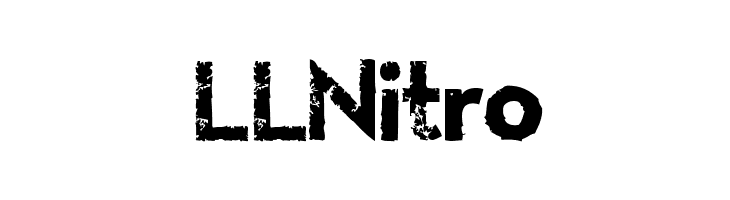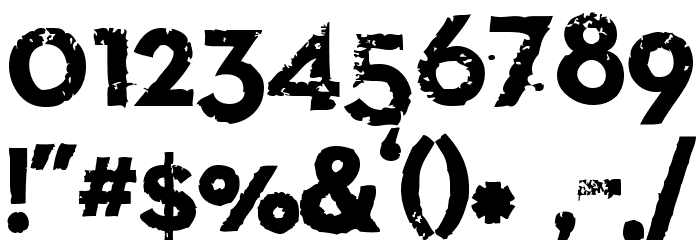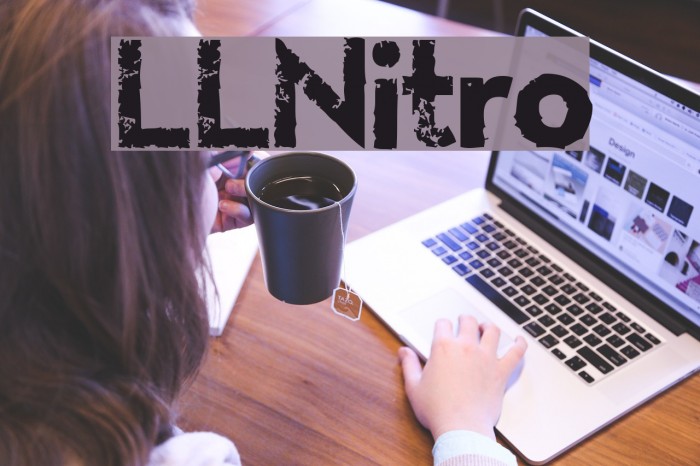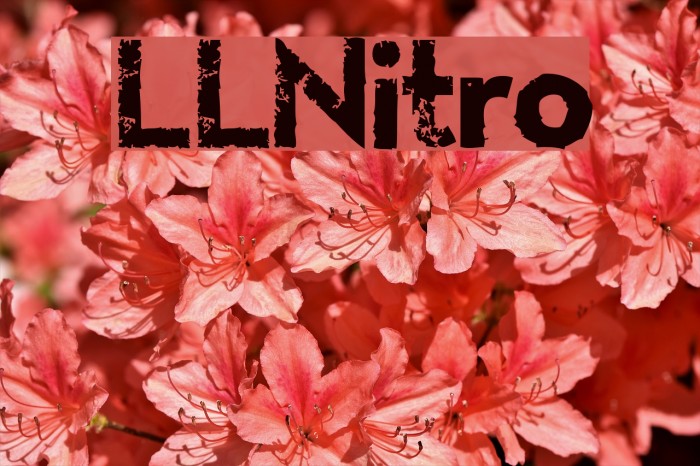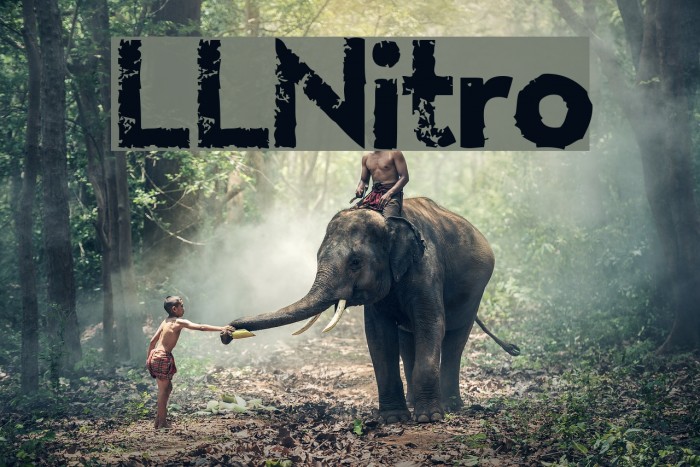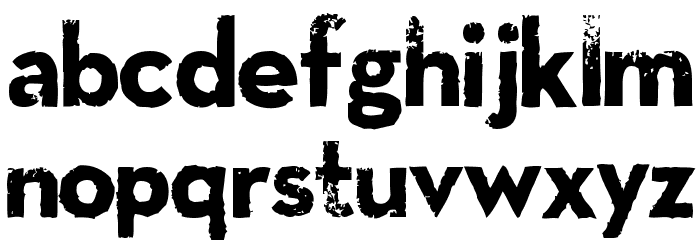
LLNitro Font
LLNitro Description
This font features a bold, distressed style with a rough, textured appearance that gives it a grunge or urban feel. The uppercase and lowercase letters are consistent in their rugged design, with irregular edges and a slightly worn look. The numbers and special characters maintain this aesthetic, providing a cohesive and edgy appearance throughout the character set. This font's unique style makes it stand out, offering a sense of dynamism and energy. It's perfect for projects that require a bold statement or an artistic touch, such as posters, album covers, or branding materials that aim to convey a sense of rebellion or nonconformity.
A bold, distressed font with a rough, textured appearance ideal for edgy designs from Distorted Eroded fonts.
- Font: LLNitro
- Proposed Projects: Posters, album covers, branding materials, urban-themed designs, rebellious or nonconformist projects.
- Overall Style: Grunge, Urban